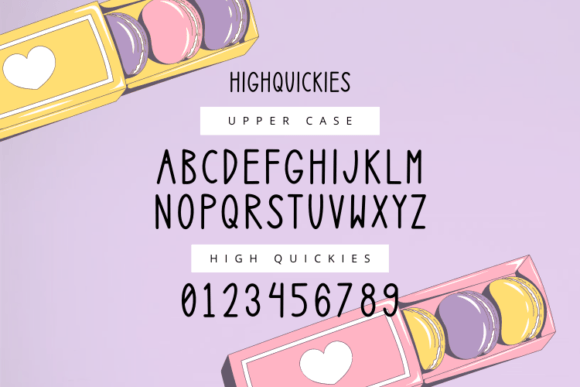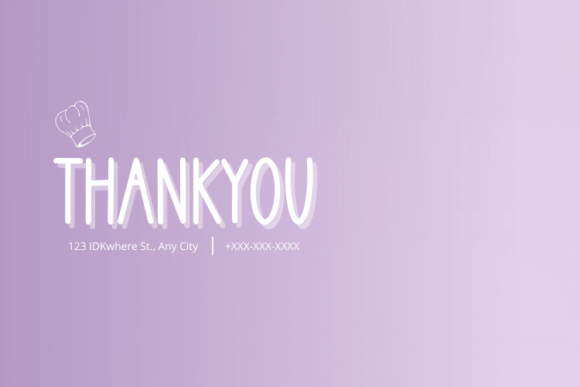
The Ultimate Guide to High Quickies Font: Adding a Dash of Quirkiness to Your Designs
I’ll never forget the time I was working on a project for a client who wanted a fun and playful font to match their brand’s personality. I spent hours scouring the internet for the perfect one, but nothing seemed quite right. That was until I stumbled upon High Quickies Font. It was love at first sight! ✨ In this article, I’ll share my experience with High Quickies, its features, and how to make the most of it in your designs.
An Honest Review of High Quickies Font
So, what makes High Quickies Font so special? Let’s dive into the good stuff! 😊
• ✨ Unique and quirky personality: High Quickies Font has a one-of-a-kind handwritten feel that’s perfect for creative projects.
• ✅ Easy to read: Despite its playful nature, the font is surprisingly legible, even at smaller sizes.
• ✅ Versatile: High Quickies Font works well for a wide range of design applications, from social media graphics to invitations and more.
Of course, no font is perfect, and High Quickies has a few minor quirks to be aware of:
• 🤔 Limited formal use: Due to its playful nature, High Quickies Font might not be the best choice for formal or professional projects.
• ⚠️ Some letter variations: A few letters have limited variations, which might affect the overall flow of your text.
The Story Behind High Quickies Font
While the true story behind High Quickies Font remains a mystery, it’s easy to imagine that it was created by a designer who loves playful typography. Perhaps they wanted to craft a font that would bring a smile to people’s faces and add a dash of quirkiness to their designs.
What makes High Quickies Font unique? High Quickies Font has a one-of-a-kind handwritten feel that’s perfect for creative projects.
Is High Quickies Font easy to read? Yes, despite its playful nature, High Quickies Font is surprisingly legible, even at smaller sizes.